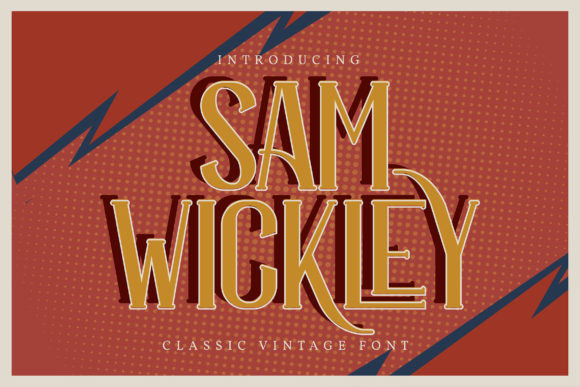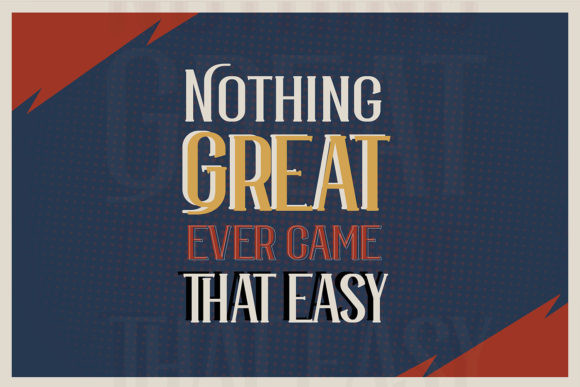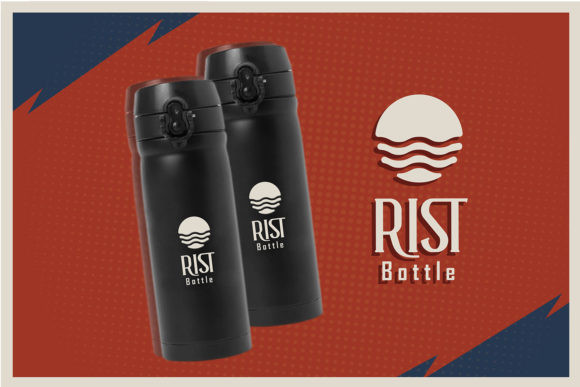
Sam Wickley Font
Sam Wickley is an elegant and neat serif font. Add this tall and adaptable font to each of your favorite creations and notice how they come alive.